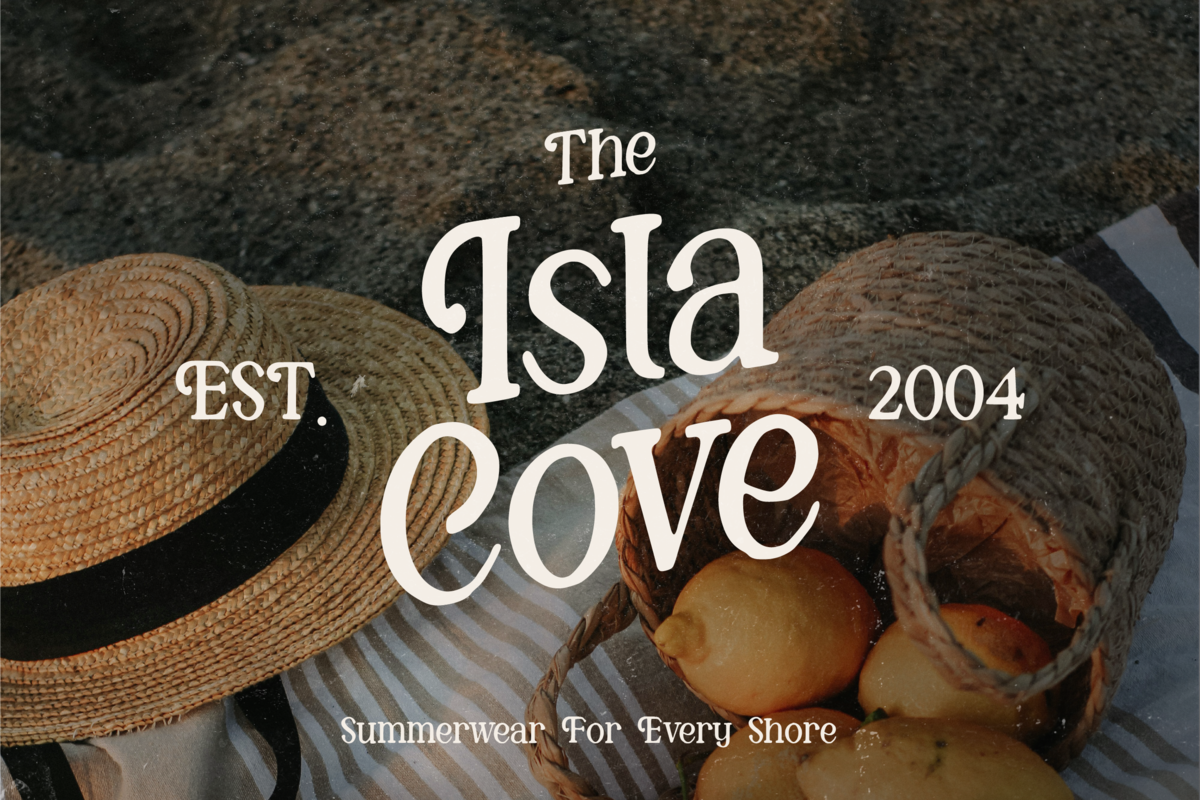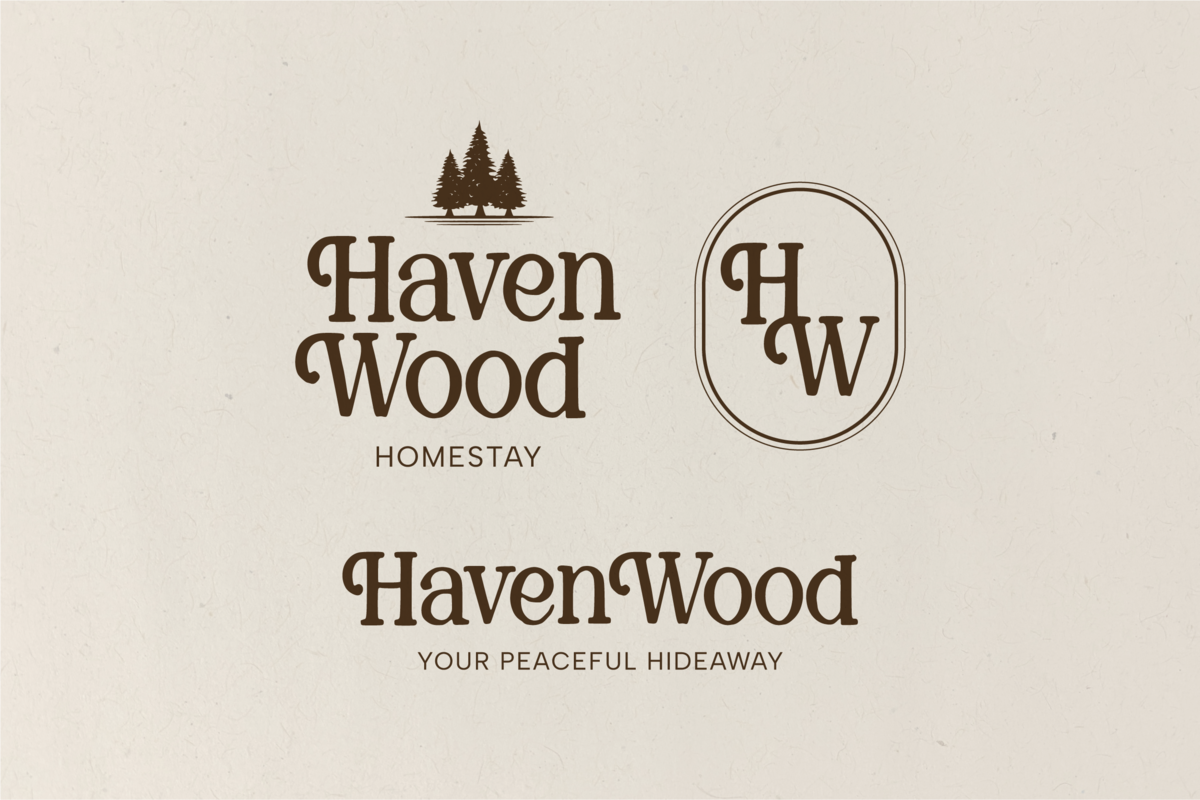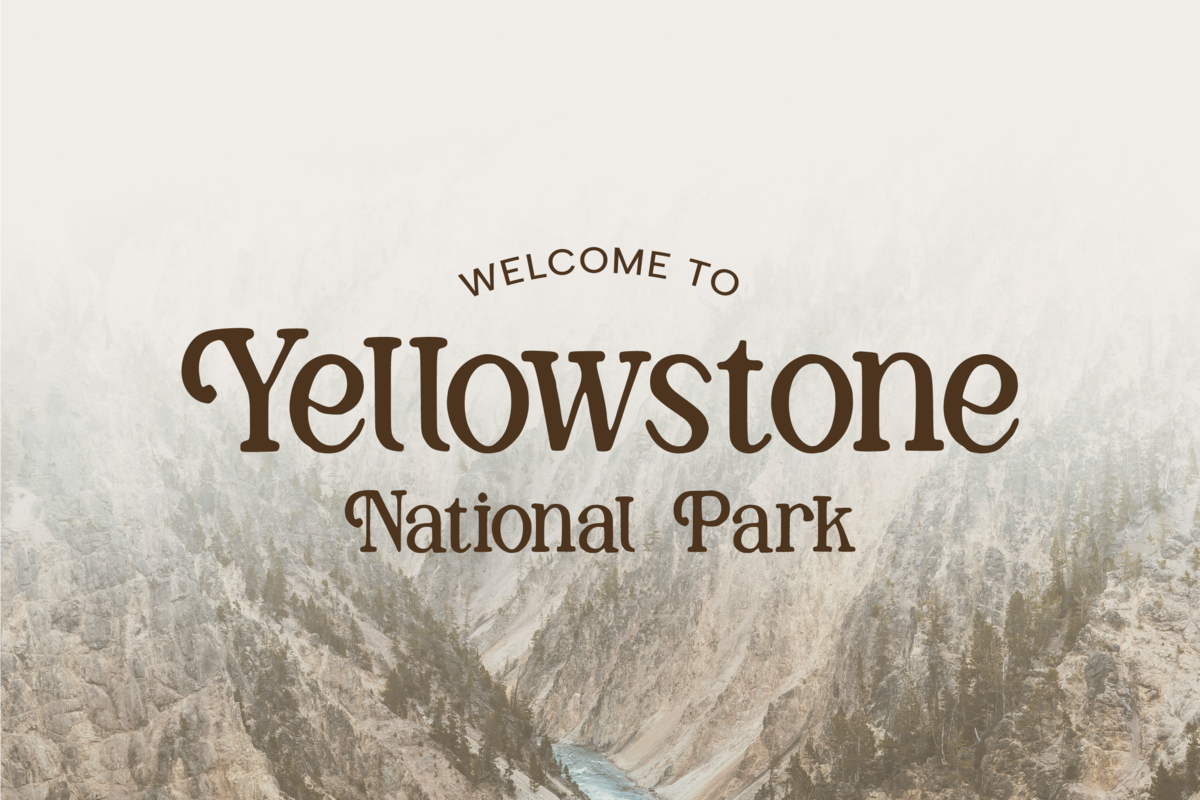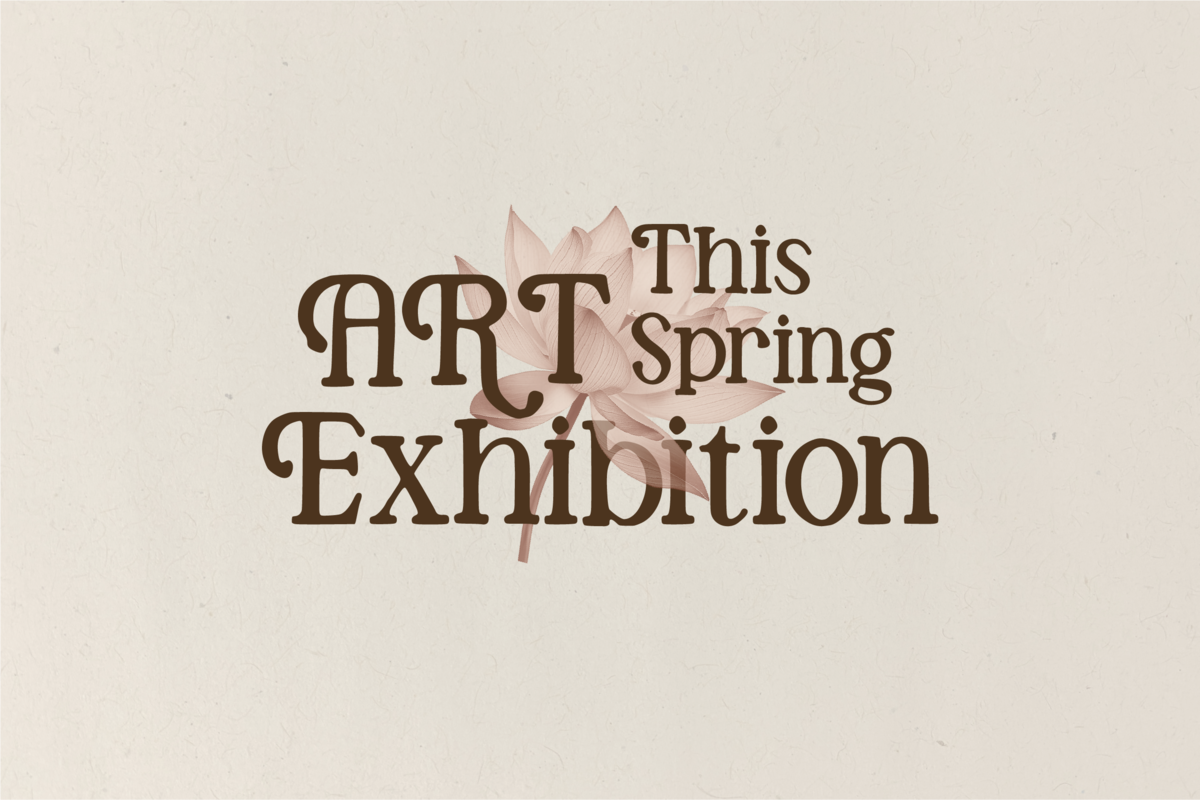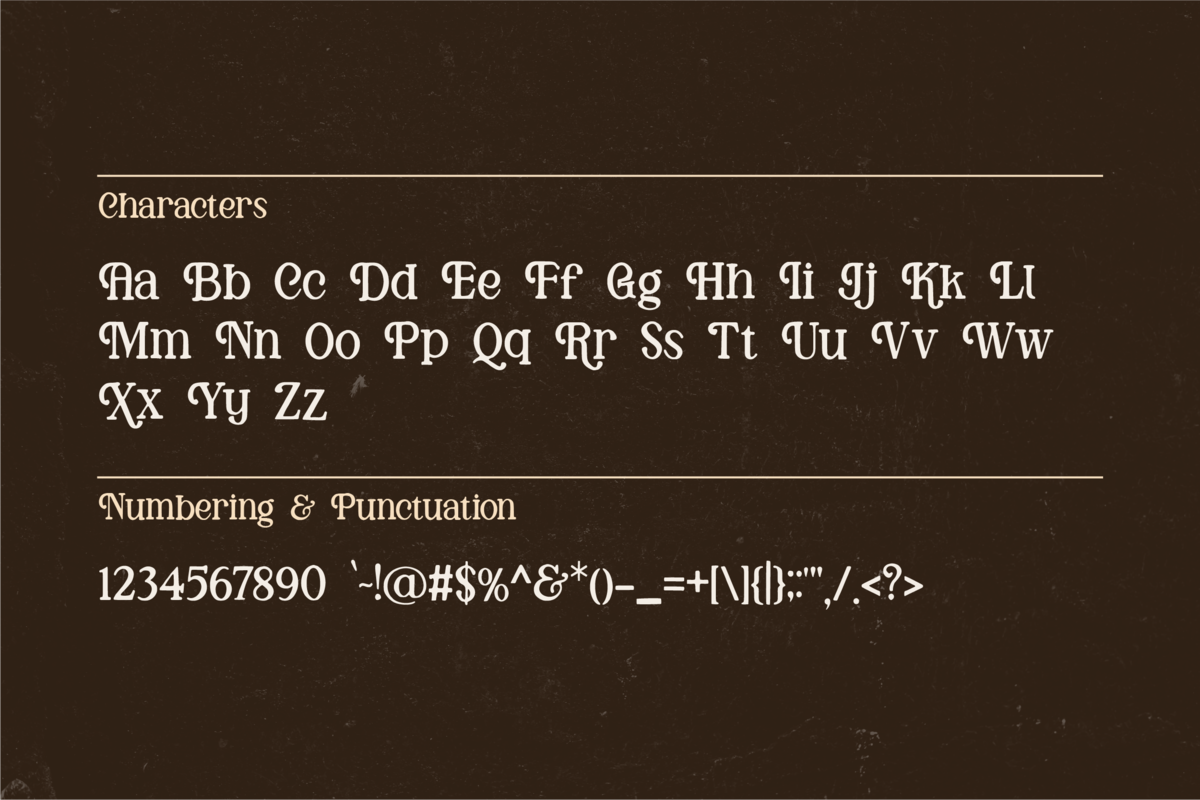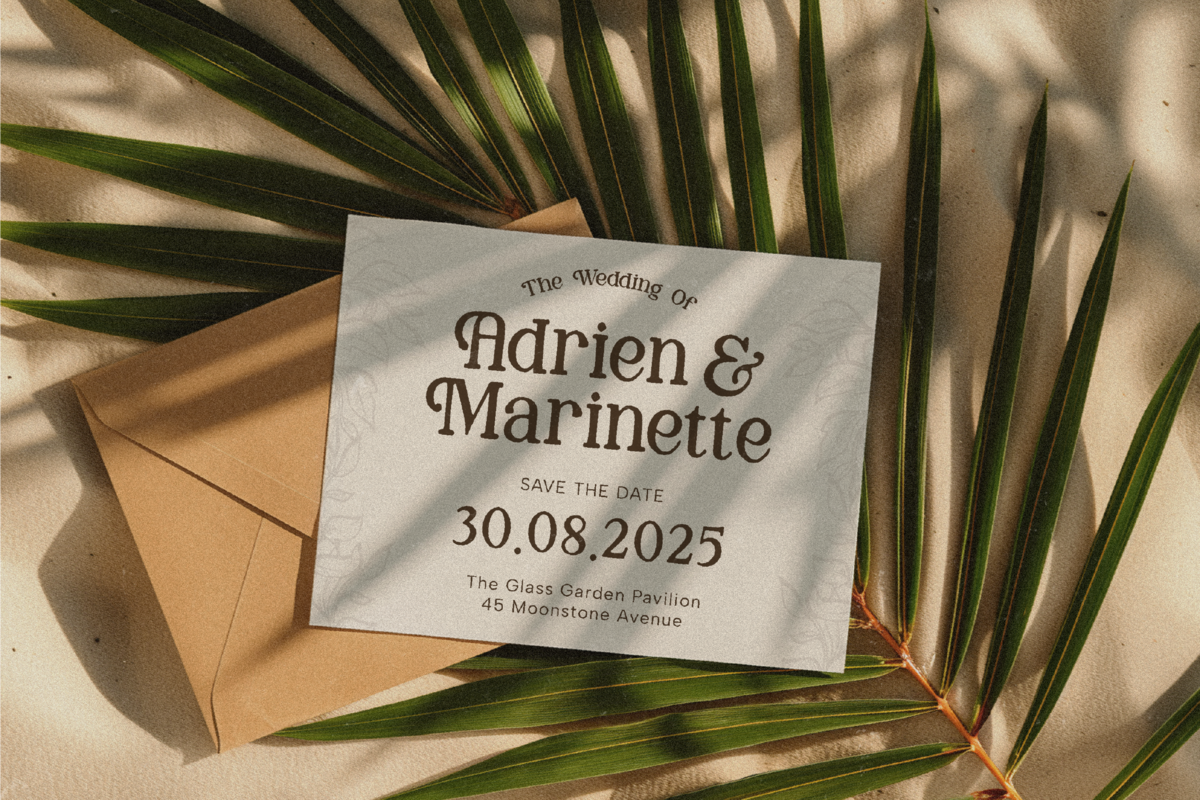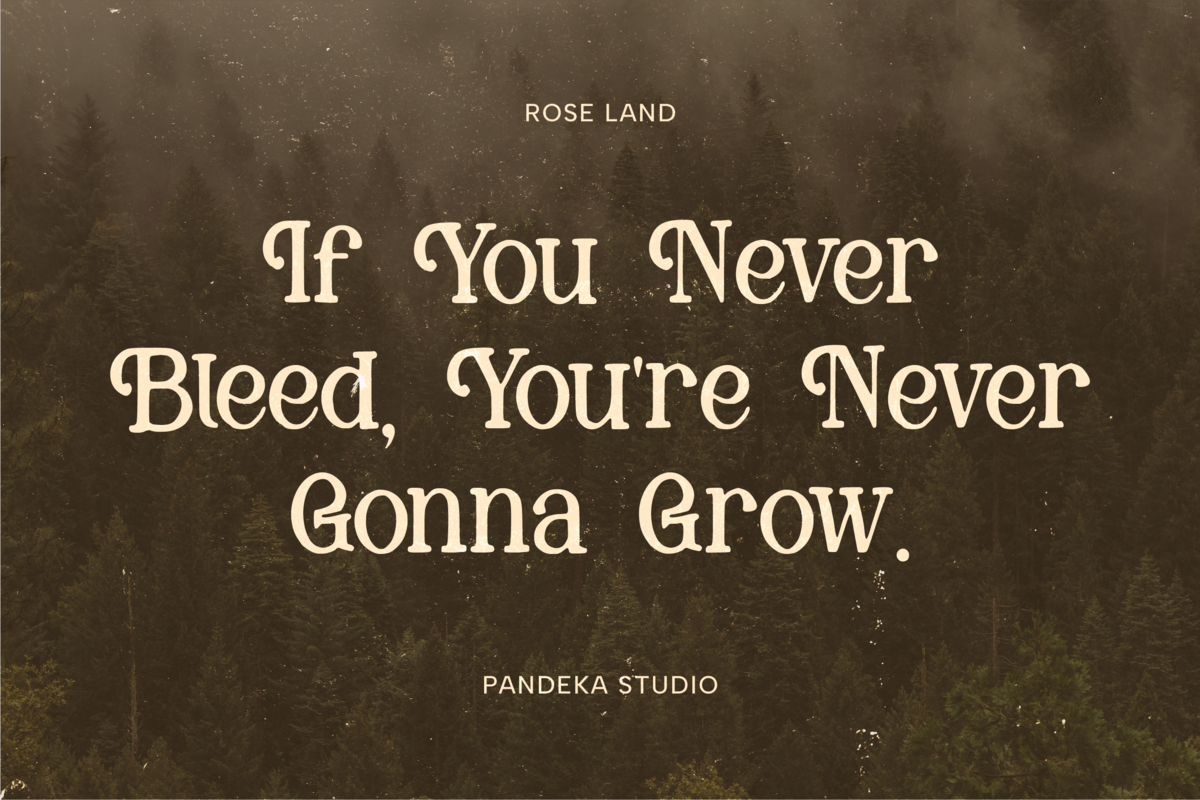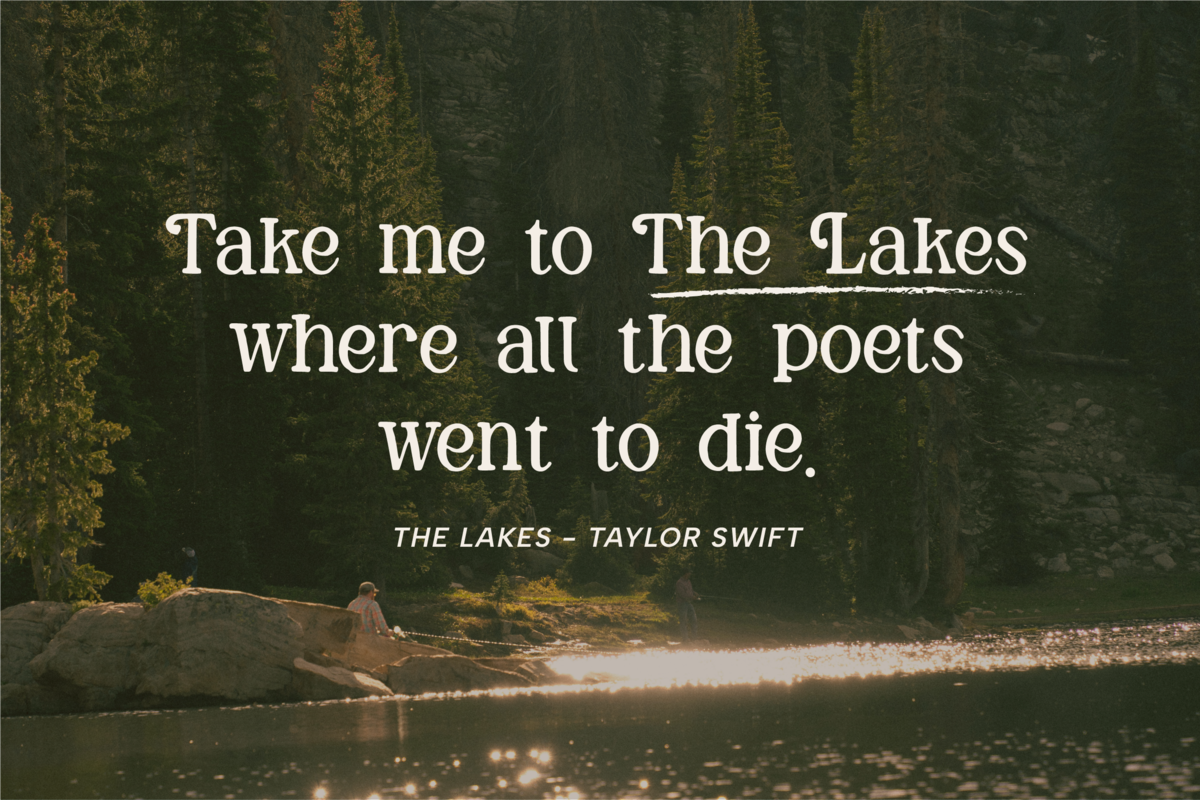
Rose Land - Elegant Handmade Serif
Rose Land is an elegant serif typeface with a handmade touch, designed to bring warmth and sophistication to your creative projects. Its organic curves and classic details strike the perfect balance between vintage charm and modern elegance, making it ideal for wedding invitations, branding, packaging, editorial design, and timeless logo projects.
Even though it comes in a single Regular style, Rose Land delivers a versatile typographic voice. Complete with uppercase and lowercase letters, numerals, punctuation, and multilingual support, this font allows you to create captivating designs that feel refined yet personal.